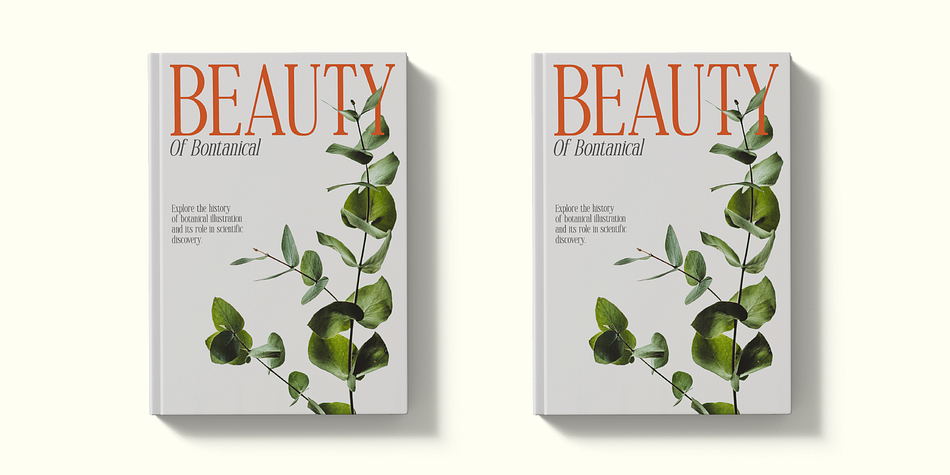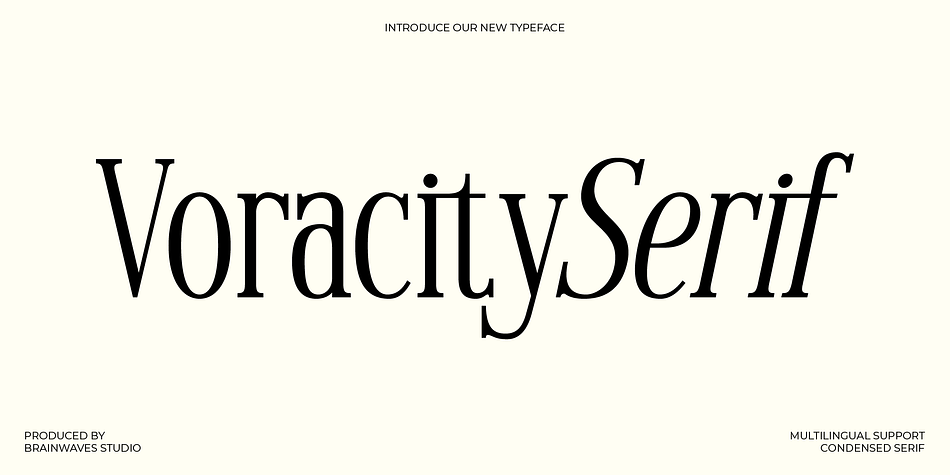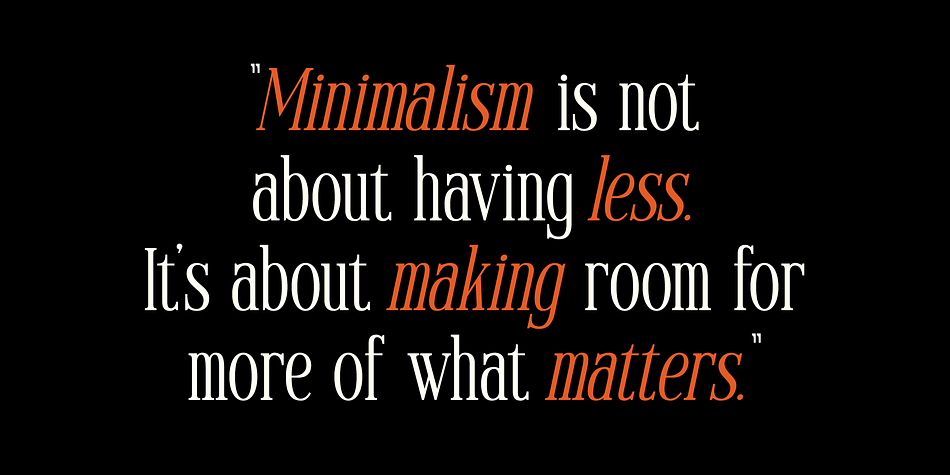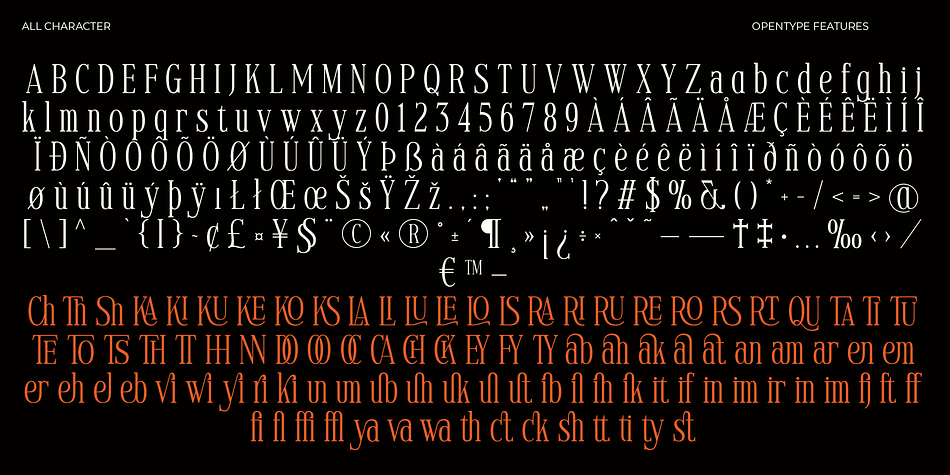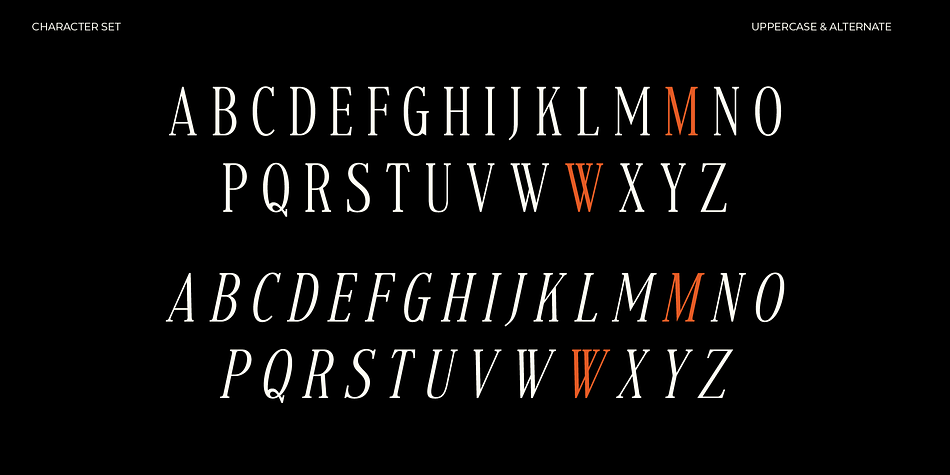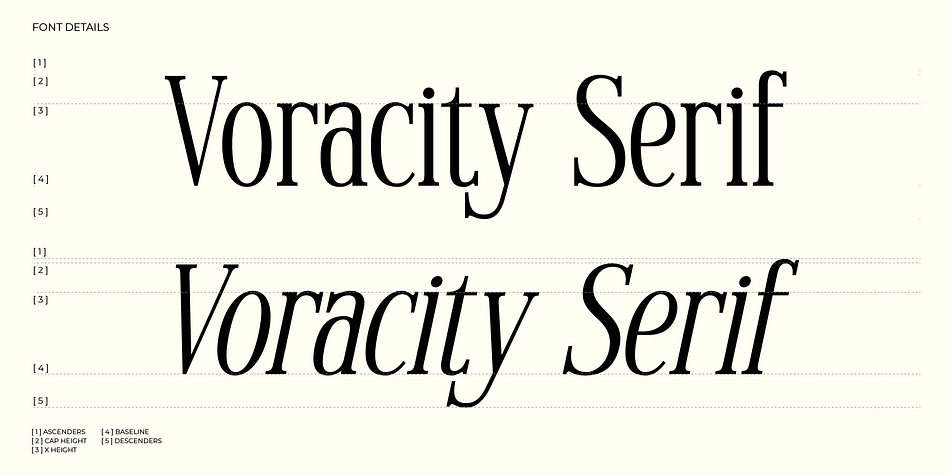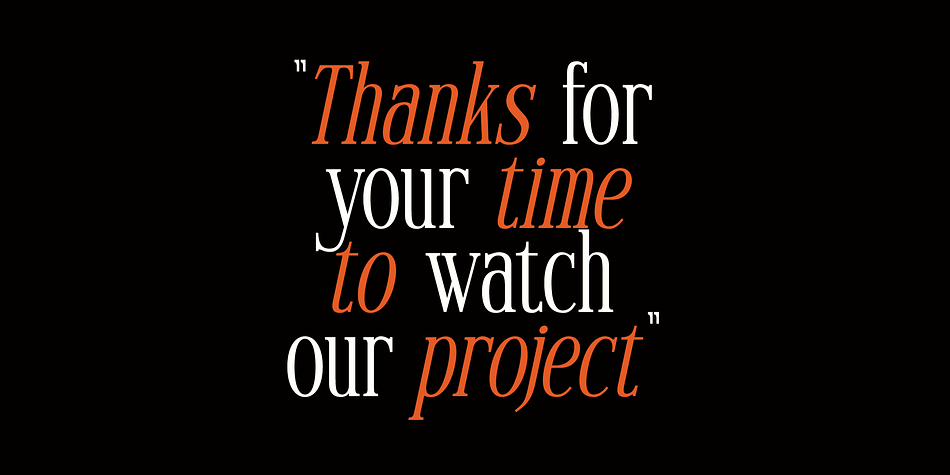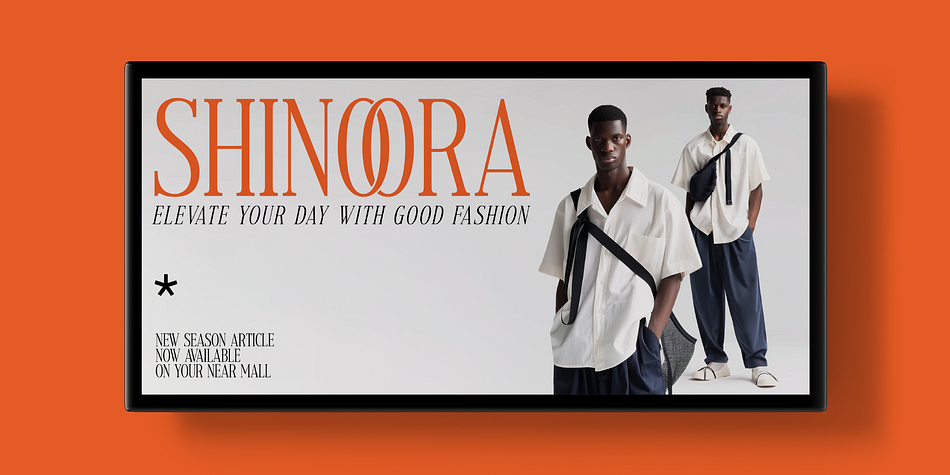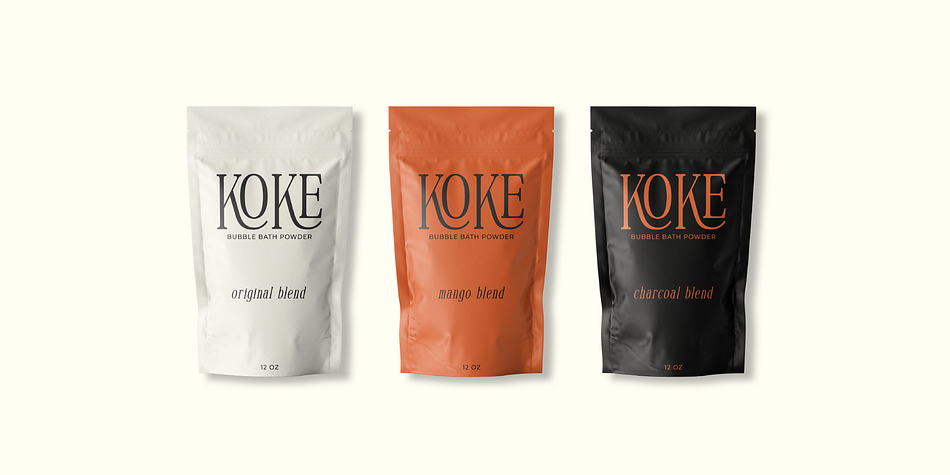
VORACITY
Designed by Lucky Fitriadi, VORACITY is a serif font family. This typeface has two styles and was published by Brainwaves Studio.
Introducing Voracity Serif, timeless serif aesthetics with a sleek, modern feel. this font is the perfect solution for designs requiring luxury, sophistication, and professionalism.